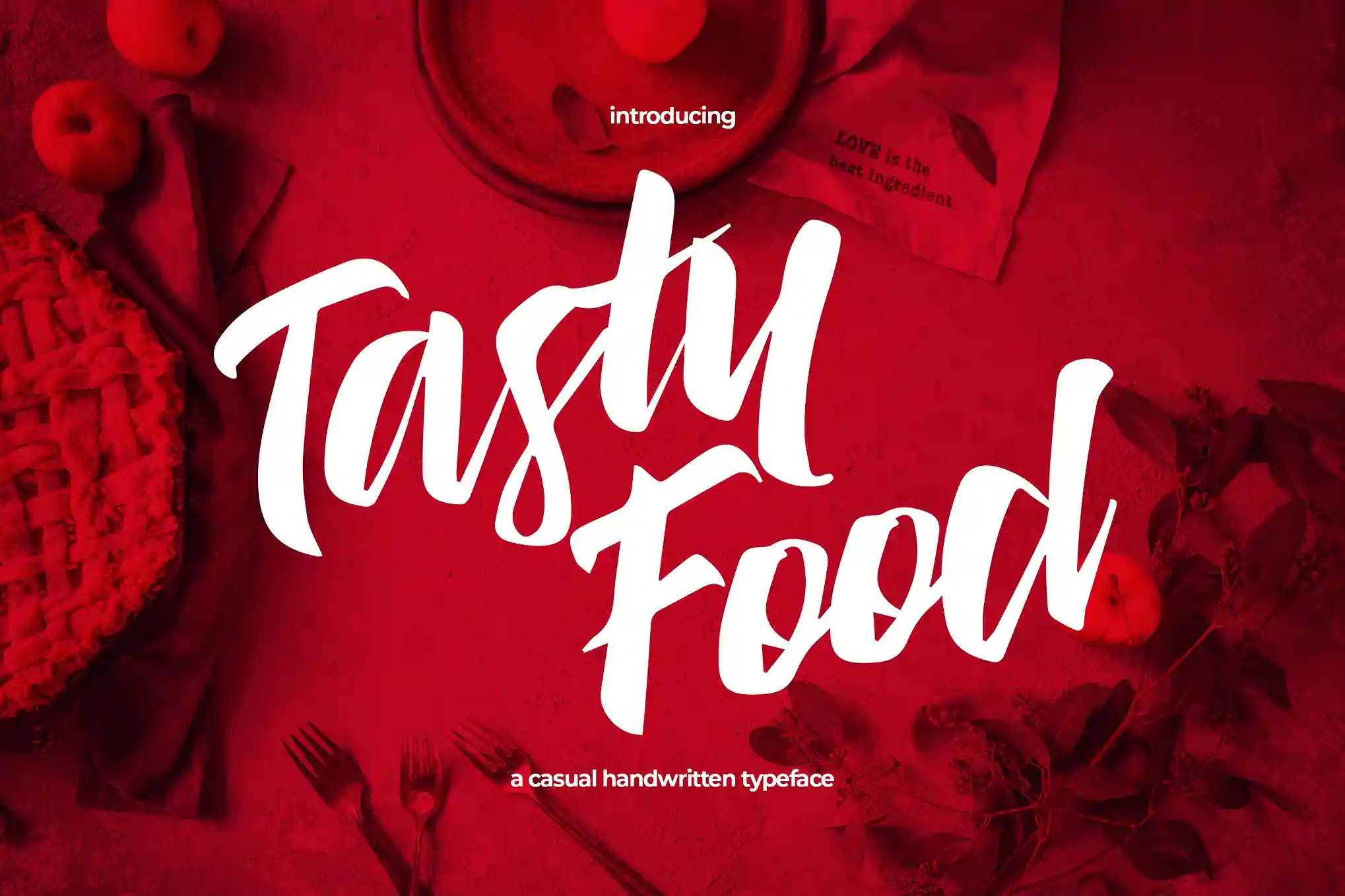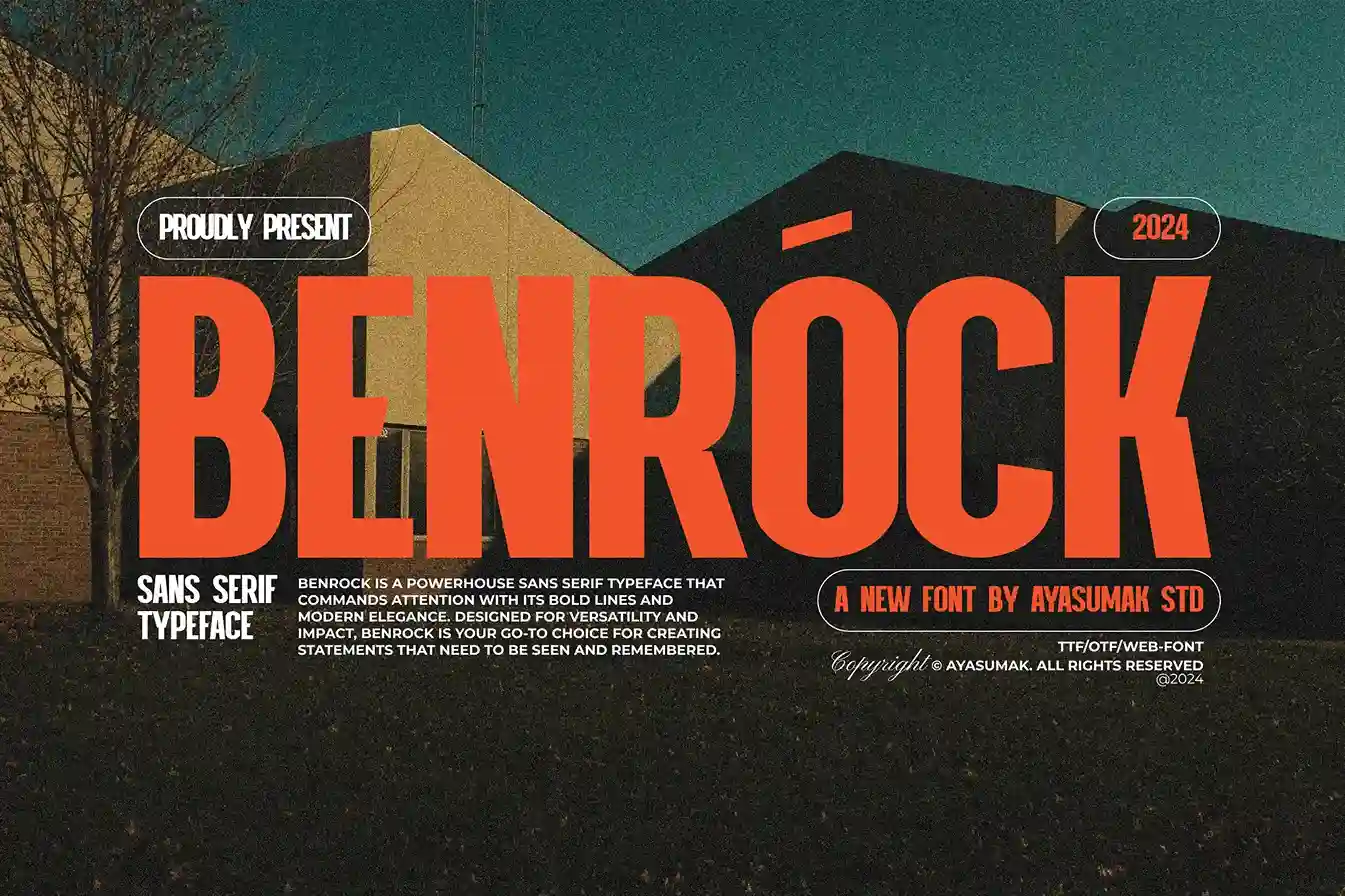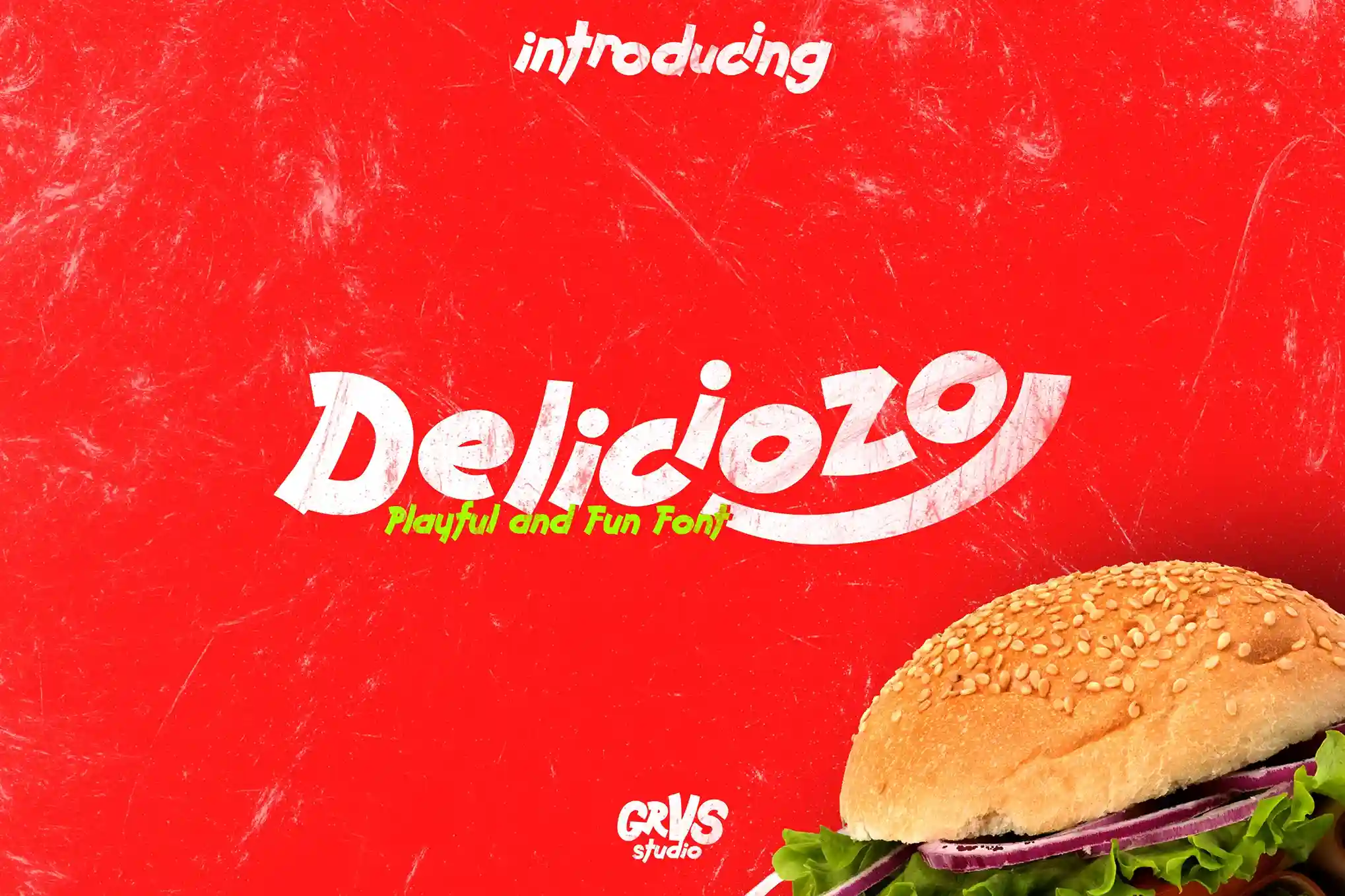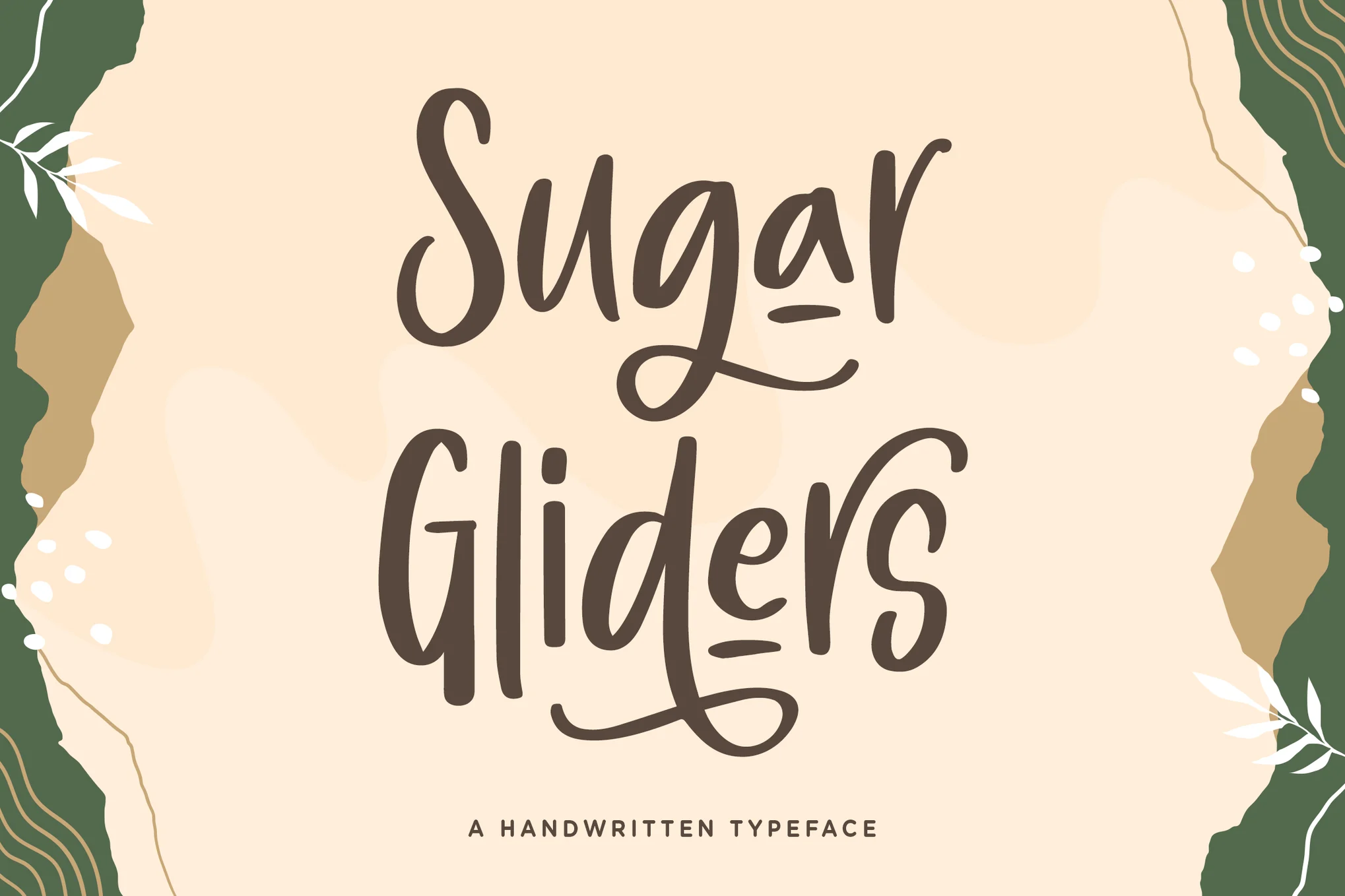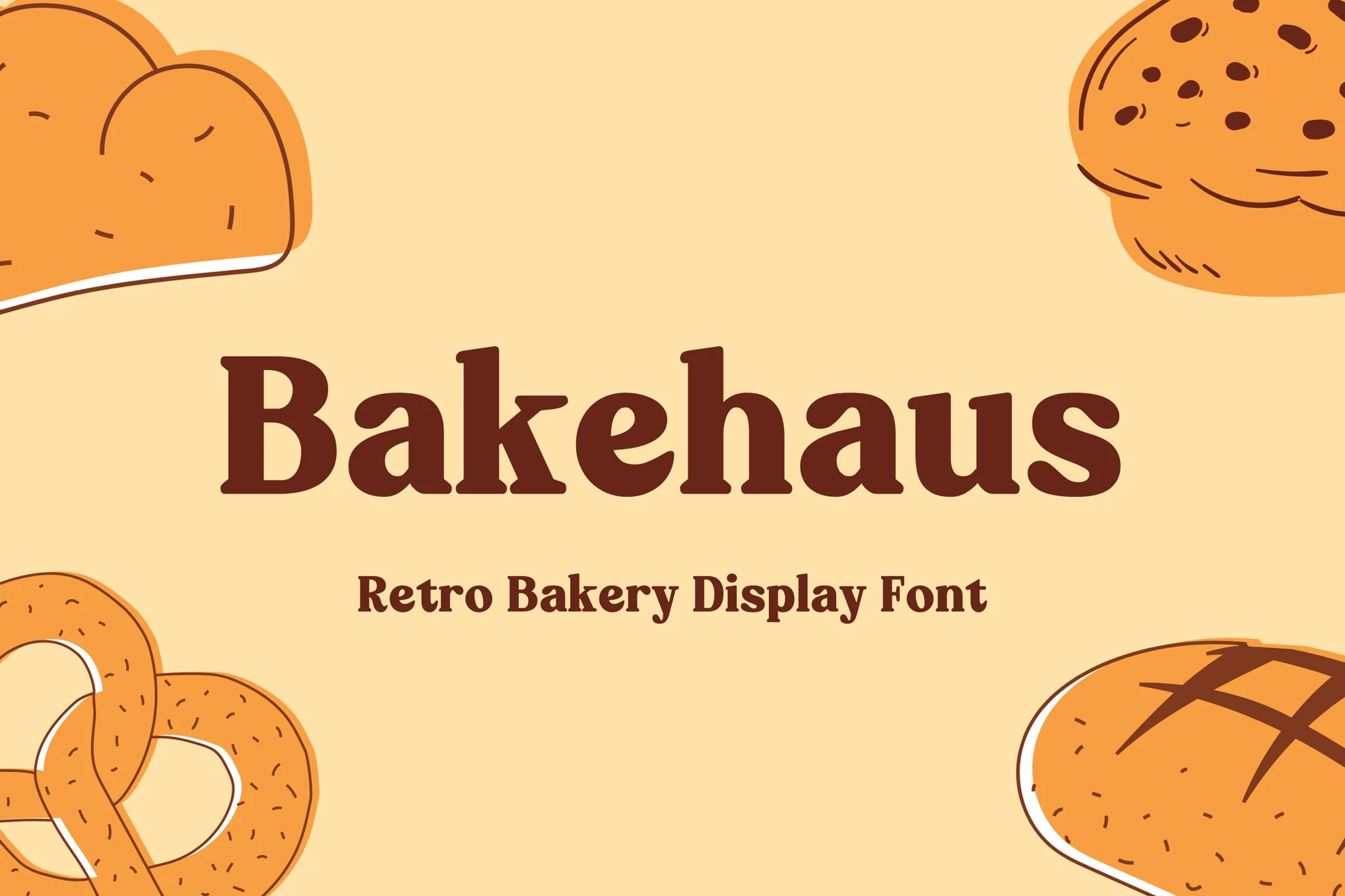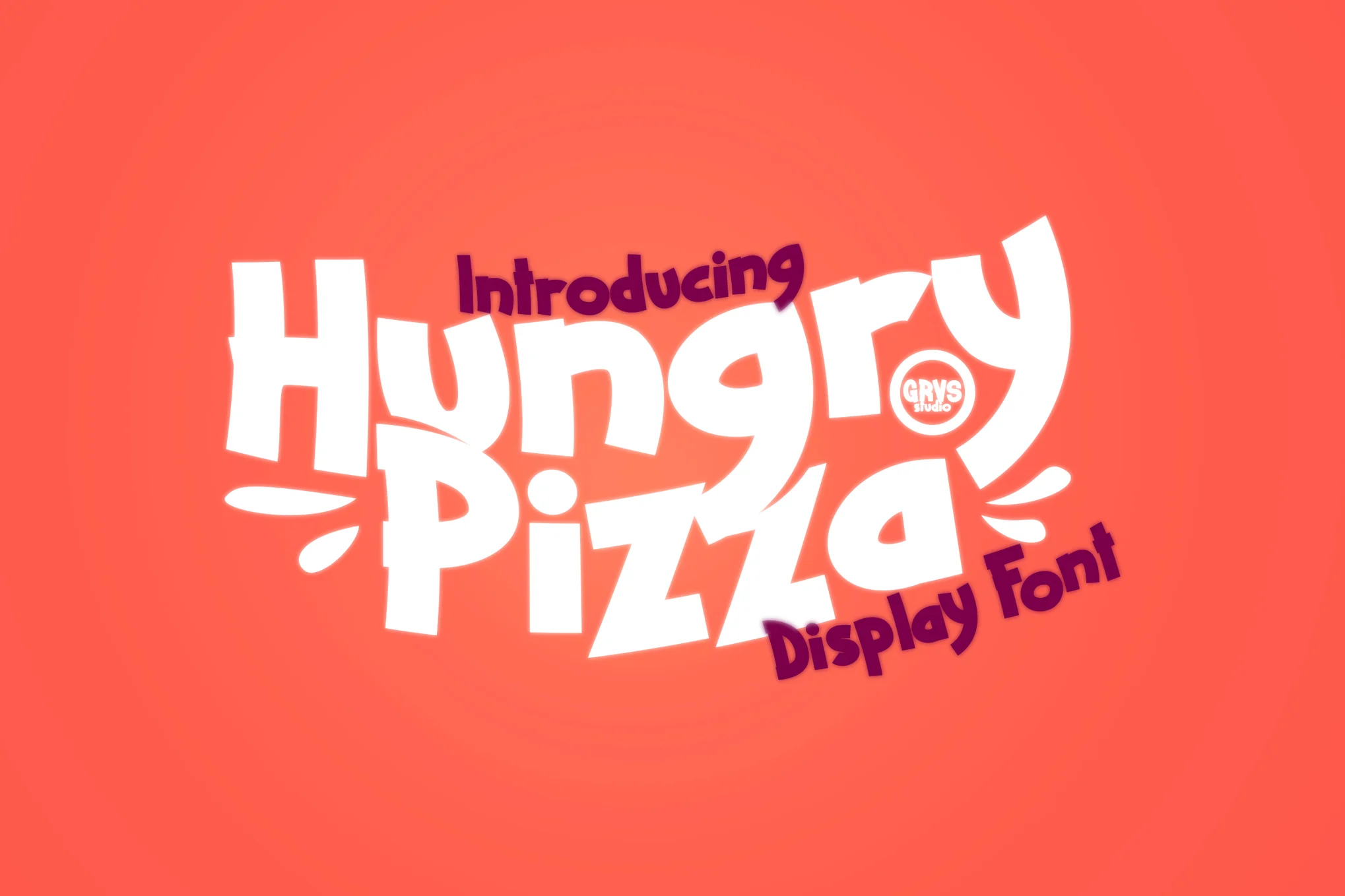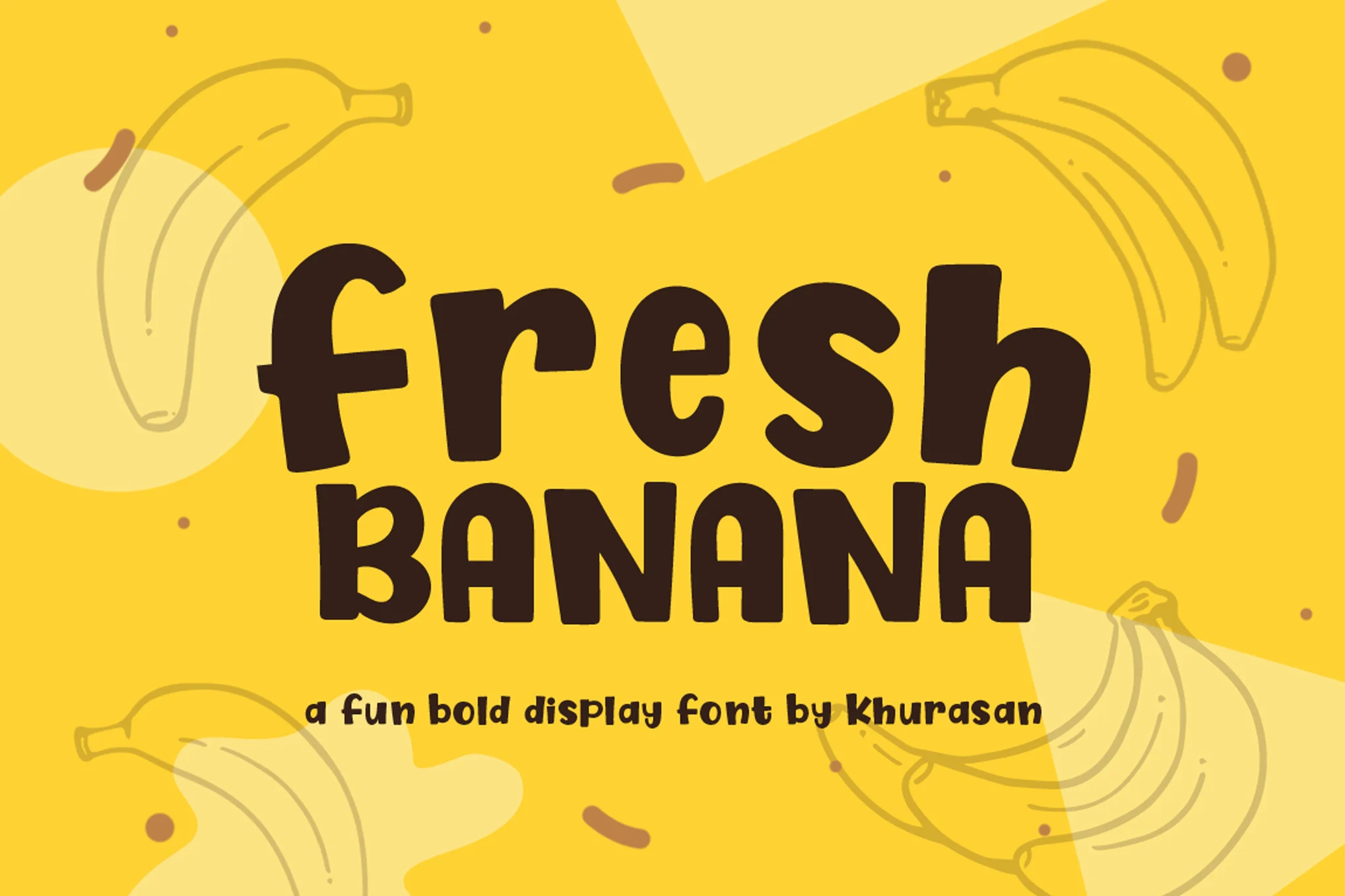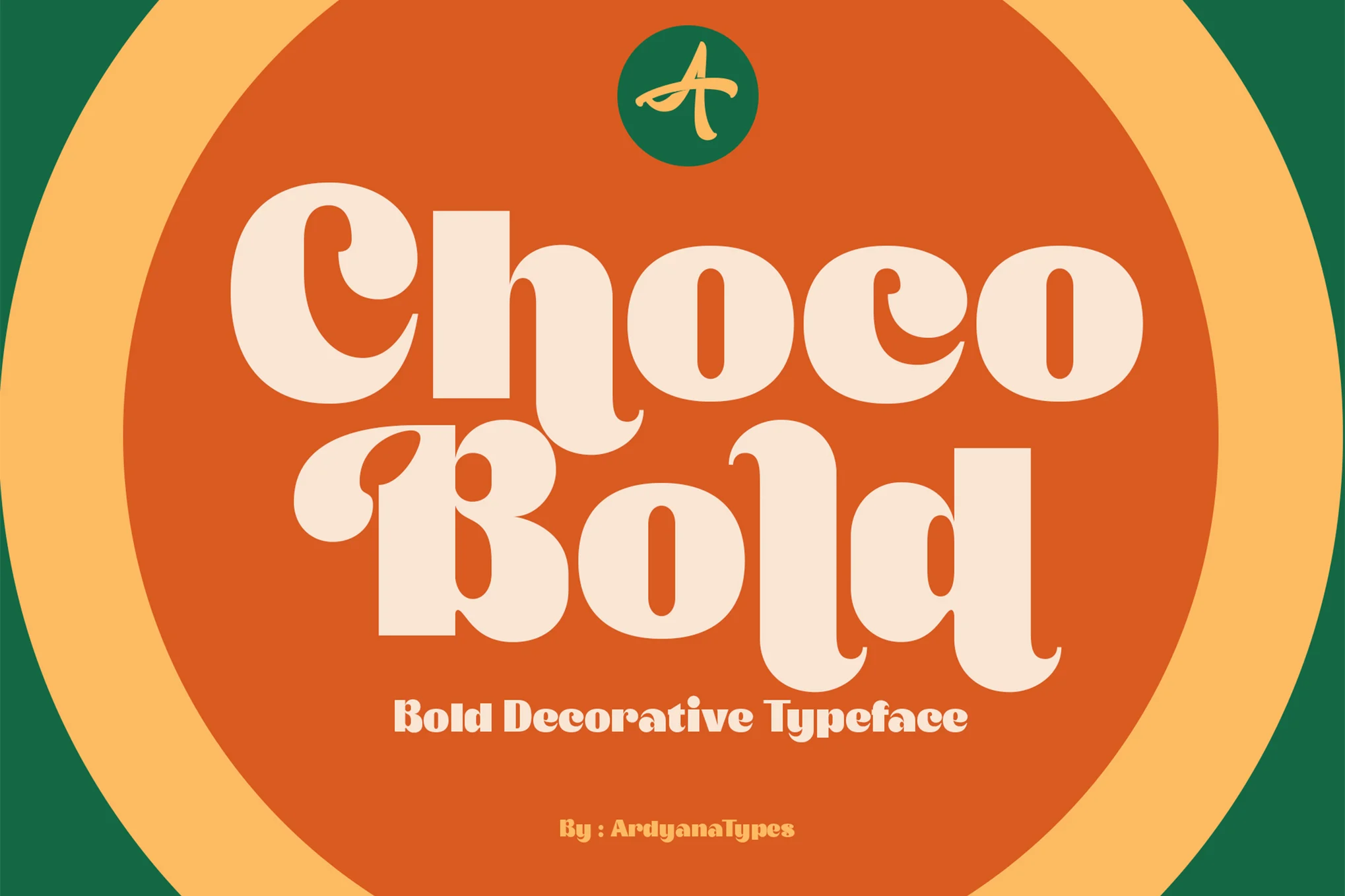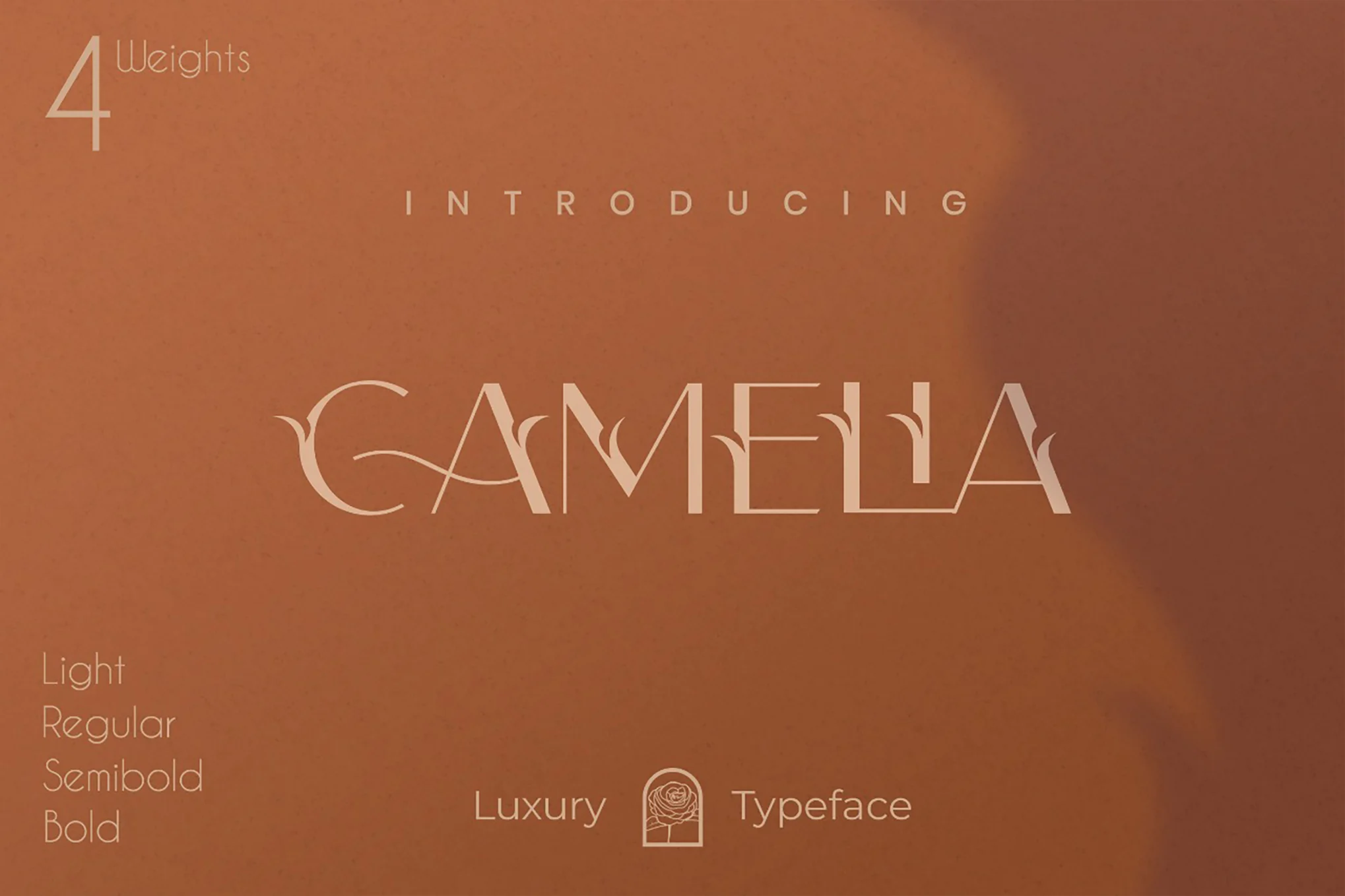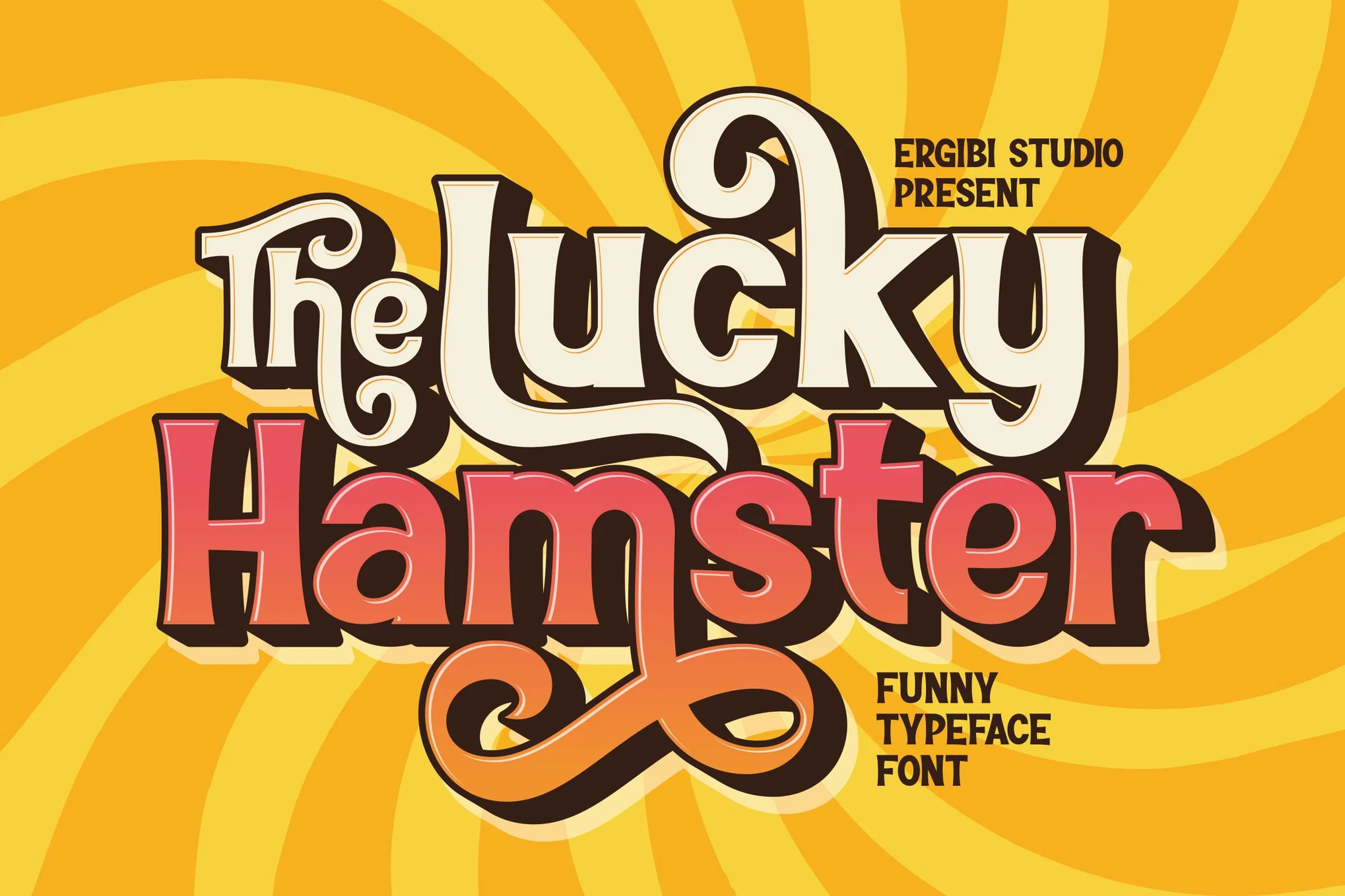
20 Food Fonts That Will Make Your Designs Look Good Enough to Eat
When it comes to food design, whether you’re creating a menu, cookbook or restaurant logo, the right font does more than just look good—it can increase customer engagement, evoke emotions and shape taste perception. In today’s competitive market, where every visual detail matters, choosing the right font is crucial.
Take McDonald’s, for example. As one of the most recognizable food brands globally, its smart use of typography plays a key role in shaping its inviting, family-friendly atmosphere. The font used in their logo and menu isn’t just playful and bold; it evokes feelings of comfort and trust, helping customers feel at ease before they even take a bite. Understanding how to choose the right food font can elevate your design and align it with the dining experience you’re trying to create. Below, I’ll walk you through 20 food fonts that will bring a taste of professionalism to your food-related design projects.
Why Food Fonts?
Food fonts aren’t just about looks—they’re strategic design tools that directly impact customer perception. The right font can communicate your brand’s personality, create an atmosphere, and even influence the perceived taste of food. Whether you’re designing for a cosy café or an elegant fine-dining restaurant, the right food font allows you to visually convey the essence of your culinary experience. For example, soft, rounded fonts are good for dessert shops, suggesting warmth and sweetness, while bold, angular fonts are more suitable for fast food or street food joints, where energy and impact are key.
If you’re struggling to choose a font that represents your food brand, think about the feel you want to create. Is it casual and fun, or upscale and elegant? It’s important to match your font to the emotional tone of your brand. By focusing on what your target audience wants to feel when they interact with your brand, you can make more informed design decisions that improve their overall experience.
The Psychology Behind Food Fonts
Fonts aren’t just about the way things look; they can shape how we feel about food. The right food font can set the mood before a customer even takes their first bite. Here’s a simple guide to understanding the hidden effects of food fonts:
How fonts affect taste
Did you know that the font used in food branding can affect how we think food tastes? Certain fonts make us imagine different flavours. For example, a smooth, rounded font can make a dessert appear creamy or sweet, while a sharp, edgy font can suggest a spicy or savoury taste.
This is because our brains associate what we see with taste memories, shaping our expectations before we even taste the food.
Cultural connections
Fonts can remind us of certain cultures and food traditions, making them seem more relevant. For example, a font that resembles traditional Mexican letters can make people think of the bold, vibrant flavors of Mexican food.
This cultural connection can make a brand feel more familiar and appealing, which enhances the overall dining experience. Sadly, when people only focus on how a font looks, this important aspect is often overlooked.
Evoke emotions and appetite
Fonts can evoke feelings that go beyond just what we see. For example, a hand-drawn, natural-looking font can make people feel comforted and nostalgic, reminding them of homemade meals and family gatherings.
This emotional connection can make food brands feel more real and trustworthy, encouraging customers to choose them over more generic options. These emotional triggers are a subtle but powerful way to influence what people choose to eat.
Visual texture and taste link
The texture of a font can match the texture of food, giving us an idea of ​​what the food might taste like.
For example, a rough, grainy font can remind us of hearty, rustic bread, while a smooth, slick font can suggest the silky texture of a delicious mousse.
This link between the way something looks and its taste is a powerful tool for designers, although it is often overlooked in food branding.
Building trust and brand identity
The font used in food branding is important for building brand identity and making it feel trustworthy. For example, a clean, simple font can suggest a modern, health-focused brand, while a bold, traditional font can convey a sense of reliability and history.
People are more likely to trust brands that match their values, and the right font can communicate these values ​​without being overbearing. This is an important part of font psychology that is often overlooked but is crucial for building long-term customer loyalty.
20 Food Fonts That Will Make Your Designs Look Good Enough to Eat
1. Hungry Pizza Display Font
Best for: Logo design, signage, and packaging design.
Hungry Pizza is a playful and bold font, perfect for pizzerias and casual dining spots. Its fun design makes your menu or signage vibrant and eye-catching. This font is great for creating logos that stand out, especially in crowded markets.
2. Delycious Script Restaurant Typeface